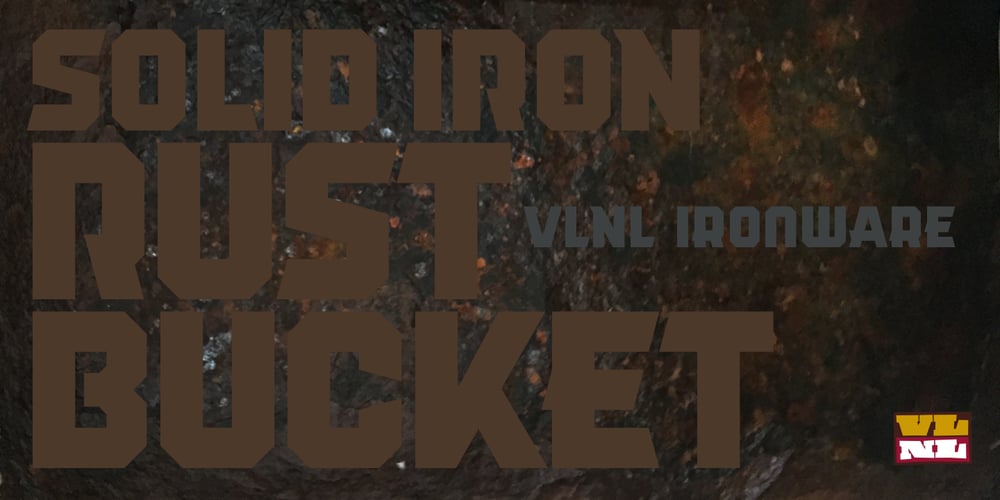
VLNL Ironware Font Family was designed by Henning Brehm and published by VetteLetters. VLNL Ironware contains 1 styles and family package options. VLNL Ironware is a solid heavy metal industrial sans serif, with a distinct echo to 1980s/1990s arcade games. Ironware goes without any curves whatsoever, and sports spikey serifs on several irregular places. It contains two alternate stylistic sets giving lots of design play possibilities, and also a full set of Cyrillic characters for our Eastern European friends.Motion picture graphic designer Henning Brehm designed VLNL Ironware for a specific purpose. It’s featured in the Hollywood movie ‘The Fall Guy’, starring Ryan Gosling and Emily Blunt, which premiered in May 2024. ‘Metalstorm’ is the name of the movie within that movie. Henning Brehm’s logo design is featured on the stunt crew shirts and equipment. That Metalstorm logo formed the basis for the Ironware font.VLNL Ironware is designed to be used for heavy logos and headlines. It rocks.